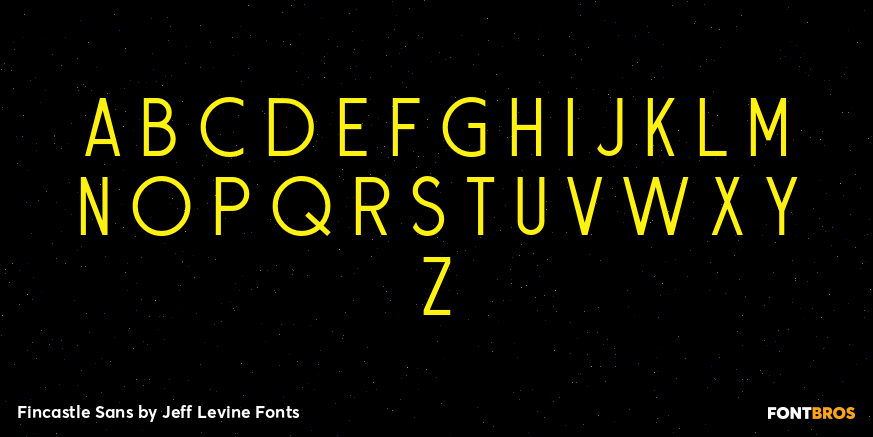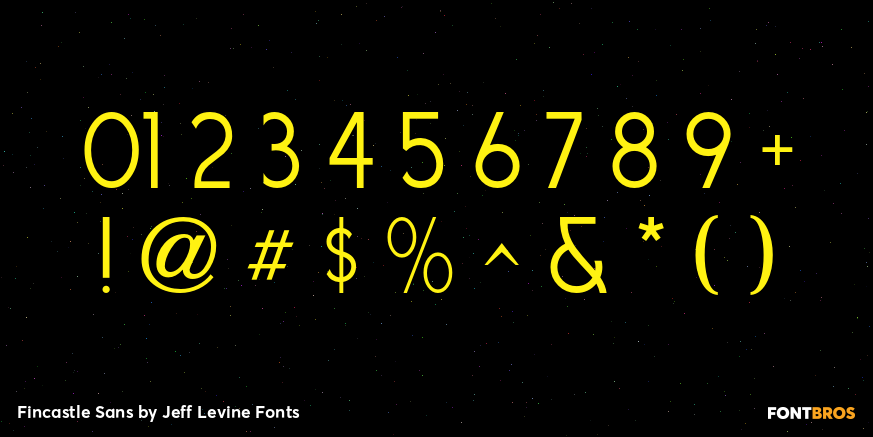
Fincastle Sans
Fincastle Sans JNL is an all-caps titling font in both regular and oblique versions.
It's clean, legible monoline design complements any layout from ad copy to personal stationery.